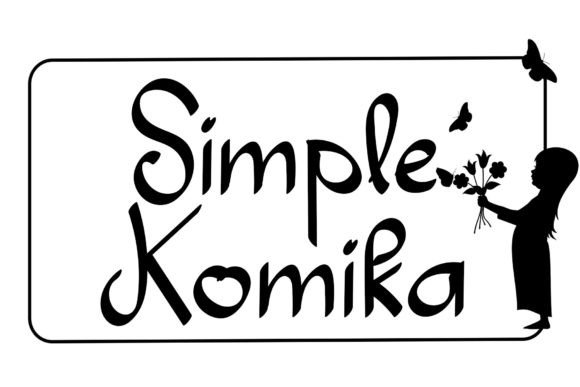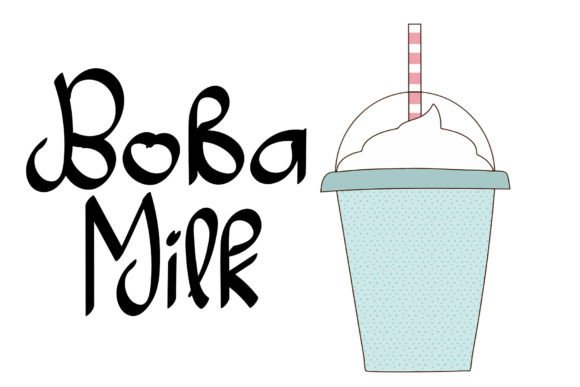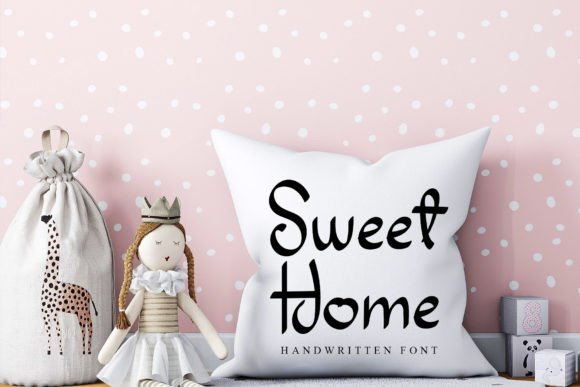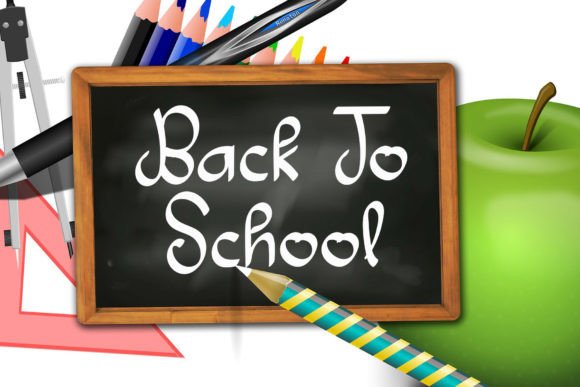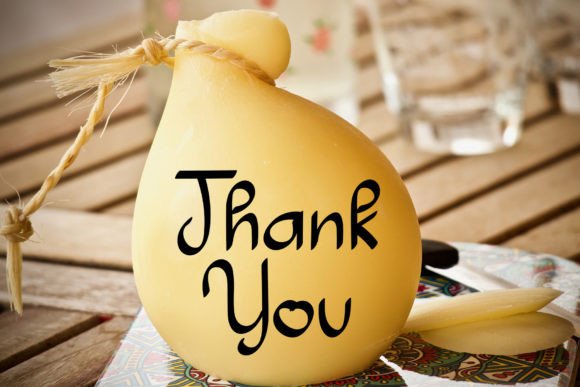
Simple Komika
About Simple Komika
Simple Komika is a friendly and cute handwritten font. Whether you’re using it for crafts, digital design, presentations, or making greeting cards, this font has the potential to become your favorite go-to font, no matter the occasion!